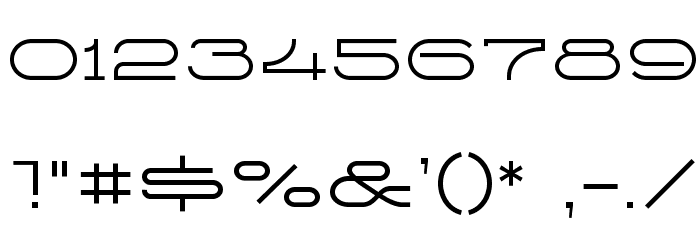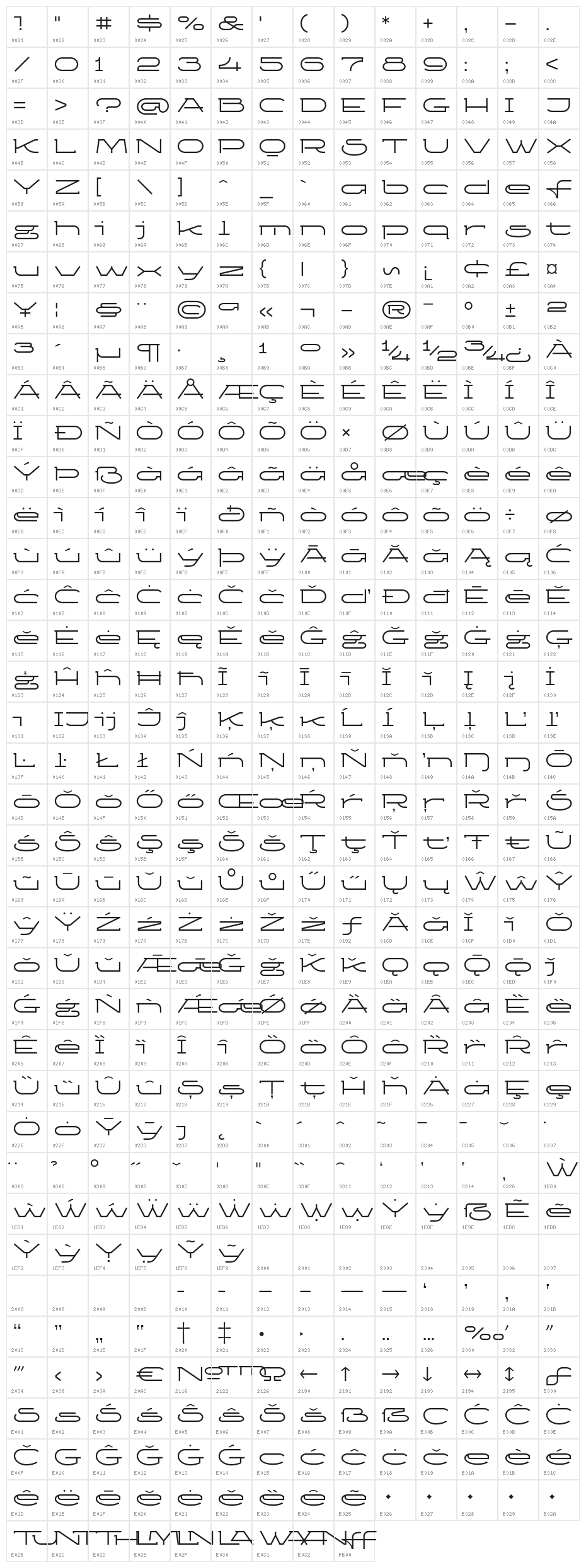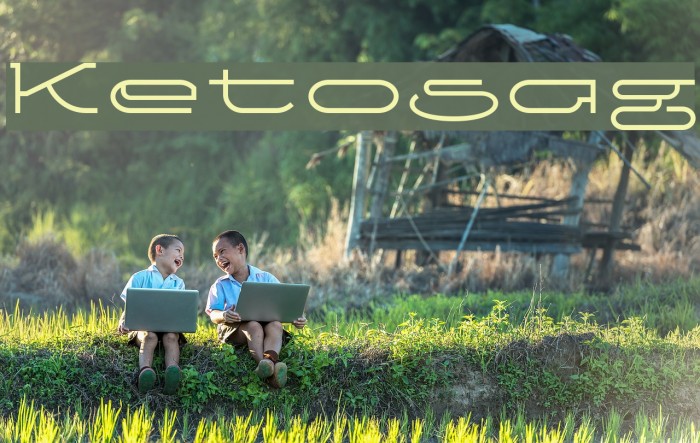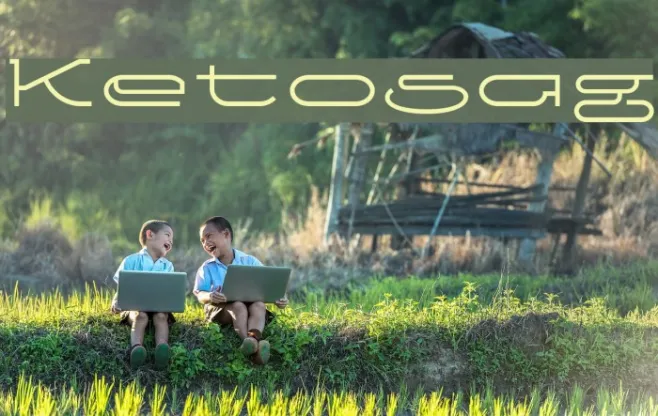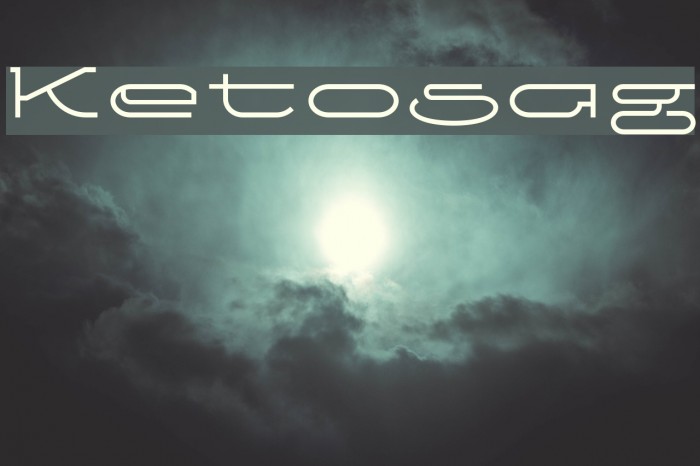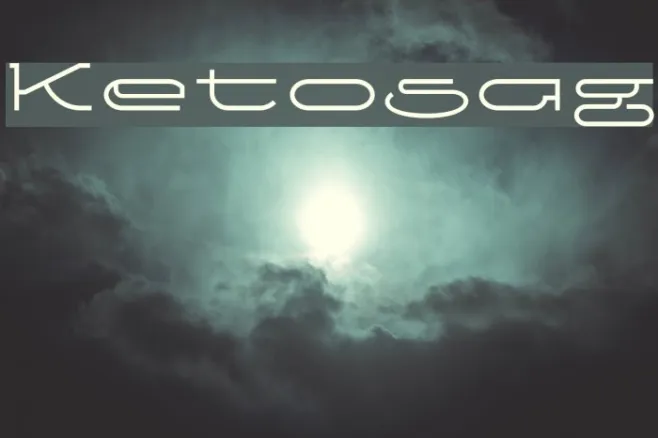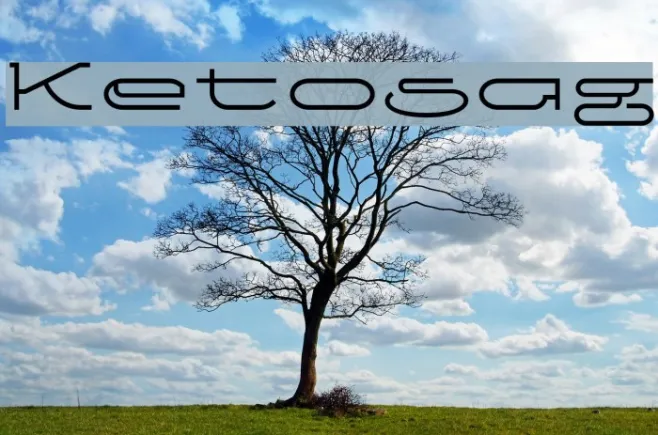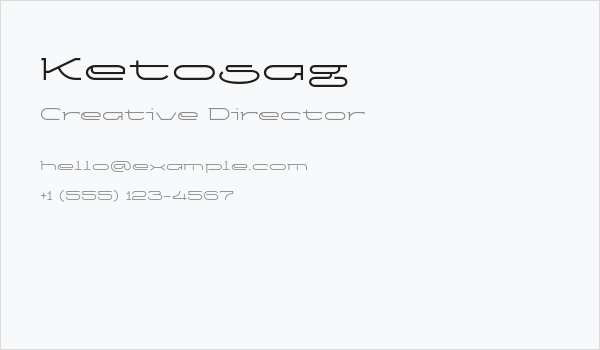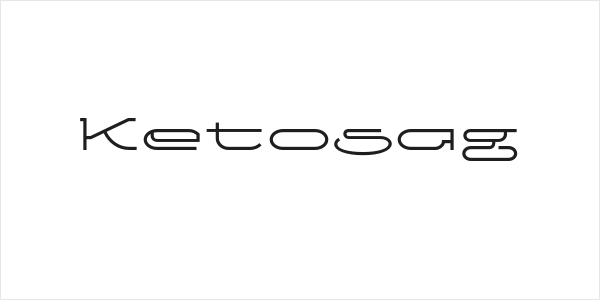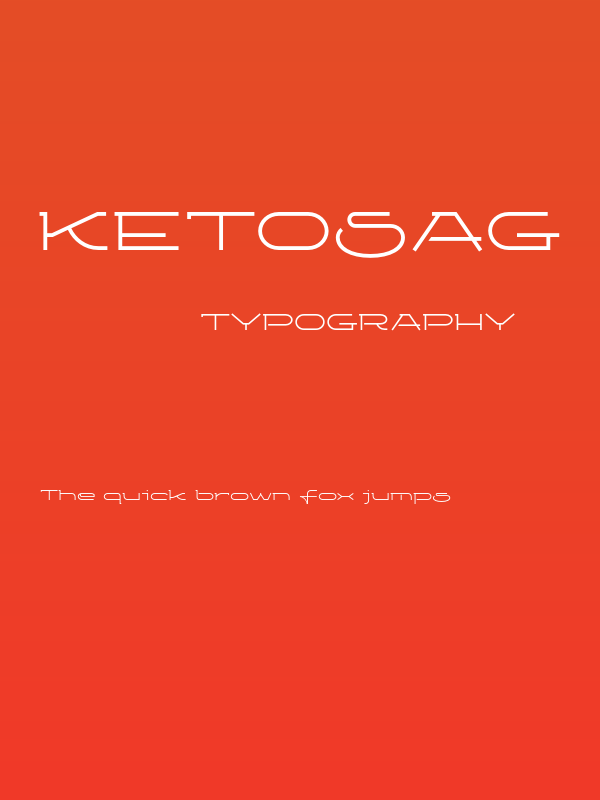
Ketosag Description
This font features a sleek, futuristic design with a geometric structure. The characters are composed of thin, consistent lines with a modern, minimalist aesthetic. The uppercase letters have a uniform height and width, creating a balanced and harmonious appearance. The lowercase letters maintain the same geometric style, with a slightly more rounded approach to enhance readability. Numbers and special characters follow the same design principles, ensuring a cohesive look across all elements. The font's clean lines and open spaces make it ideal for projects that require a contemporary and sophisticated touch.
| Proposed Projects | Ideal for tech branding, modern websites, futuristic posters, and digital interfaces. |